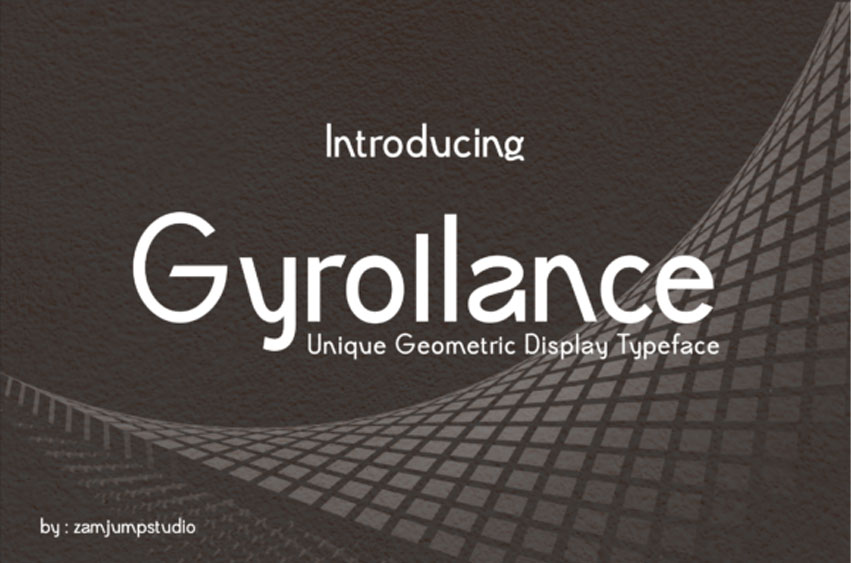
Gyrollance Font is a geometric display font that redefines conventional typographic design with its distinctive and unconventional character shapes. Unlike traditional geometric typefaces, this font stands out with unique letterforms that add a bold and memorable touch.
It is specifically crafted for optimal design applications, making it perfect for headlines, covers, branding, promotional materials, and more.
With multilingual support and uniquely designed ligatures, this font ensures versatility and creative freedom. Whether you’re aiming for a modern, edgy, or sophisticated look, this typeface will elevate your design projects with its striking visual appeal.